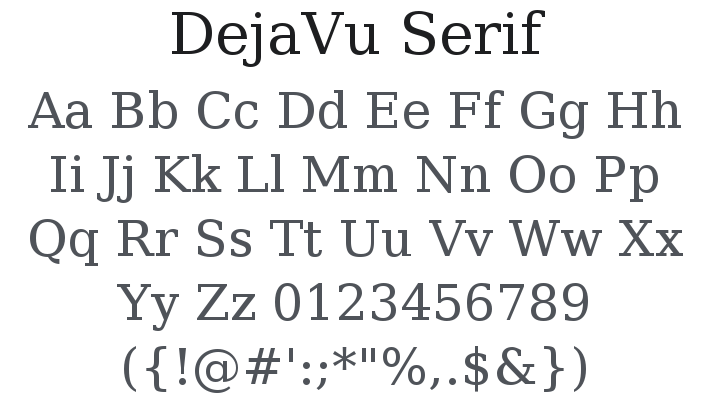
DejaVu Serif Font Family
by DejaVu Fonts
DejaVu Serif Font Family
About DejaVu Serif
The DejaVu fonts are a font family based on the Vera Fonts. Its purpose is to provide a wider range of characters while maintaining the original look and feel through the process of collaborative development